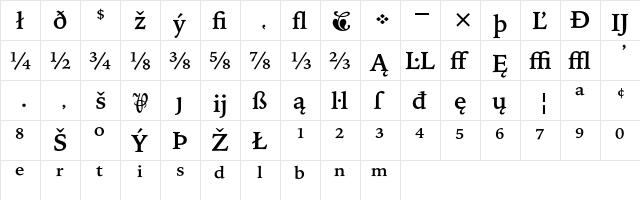
Bitstream Iowan Old Style Bold Extension
Design Context for Bitstream Iowan Old Style Typeface
Bitstream Iowan Old Style offers clean, dependable letterforms without strong stylistic allegiance, making it a practical choice for designers who need flexibility. Its bold stroke weight gives it real presence on the page.